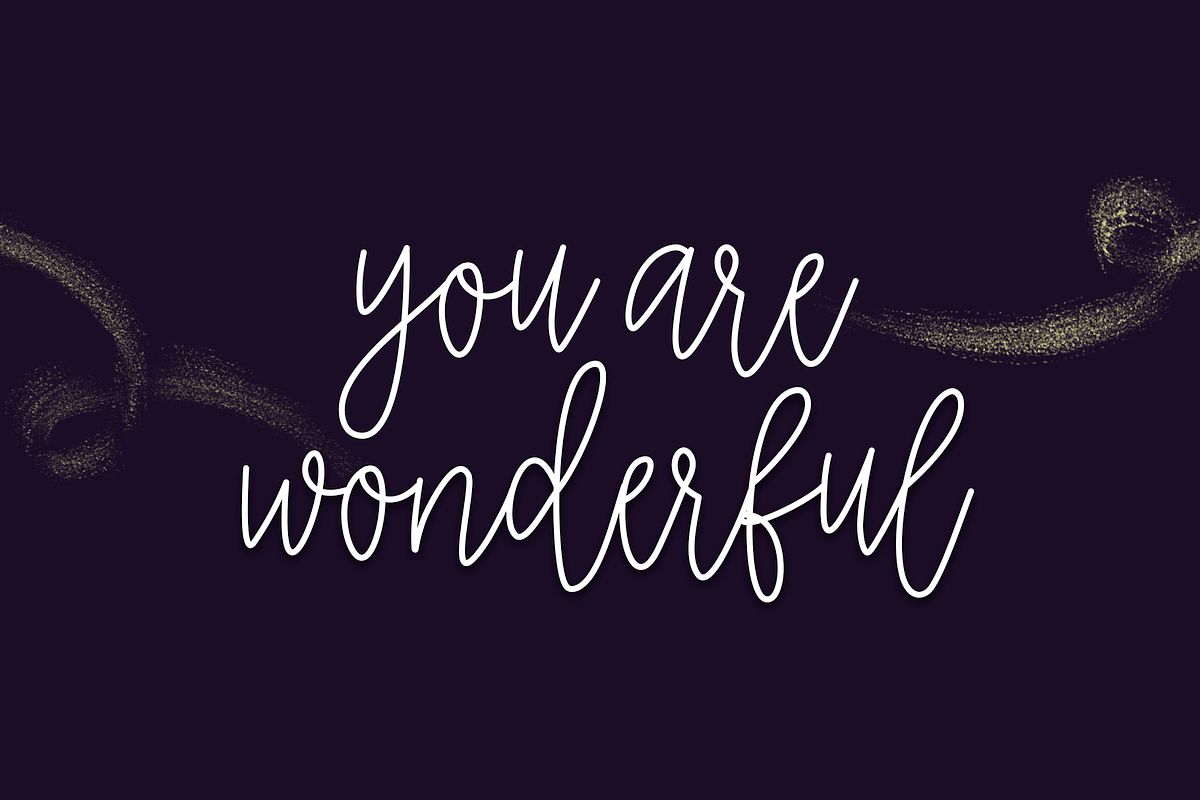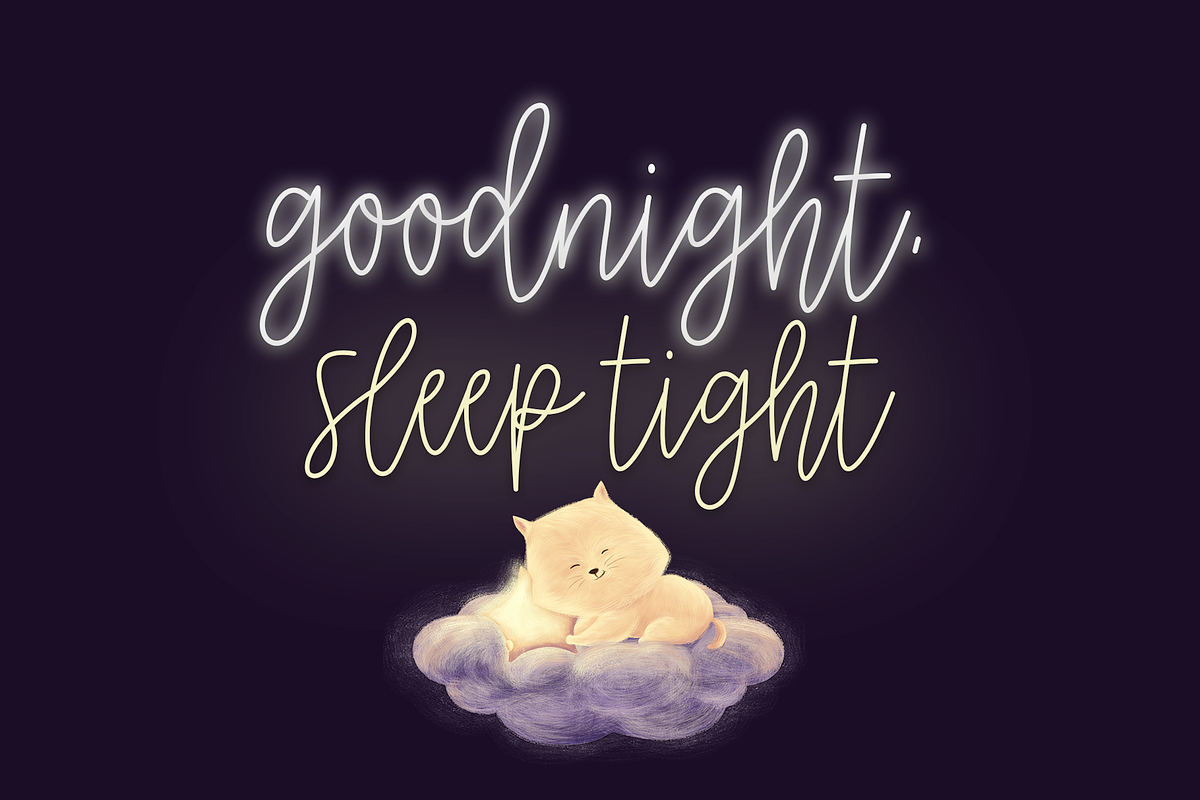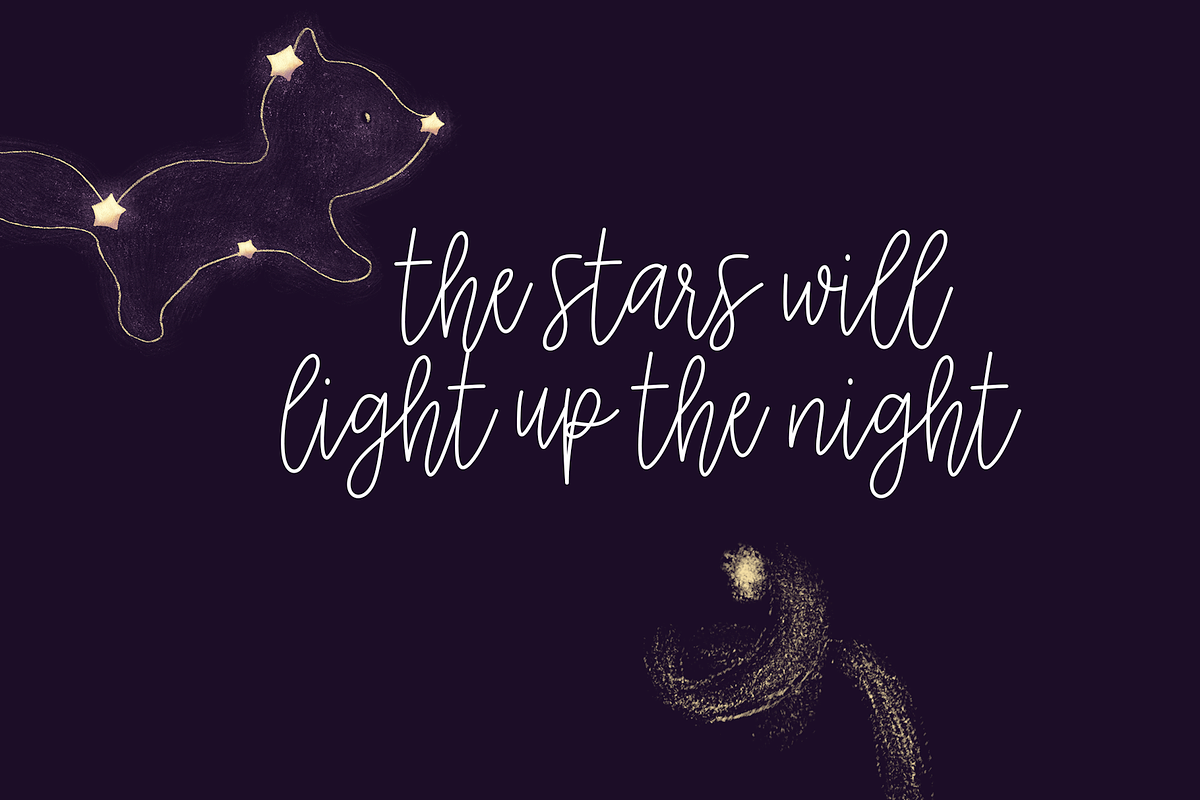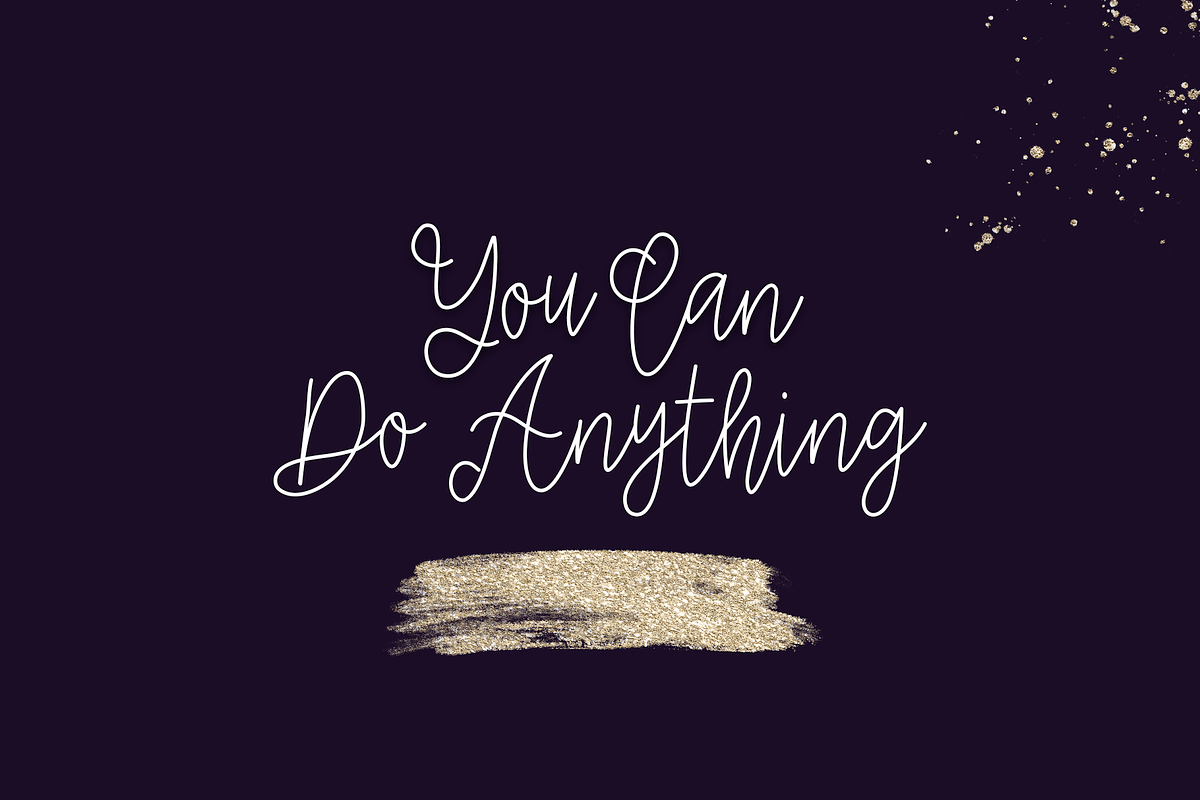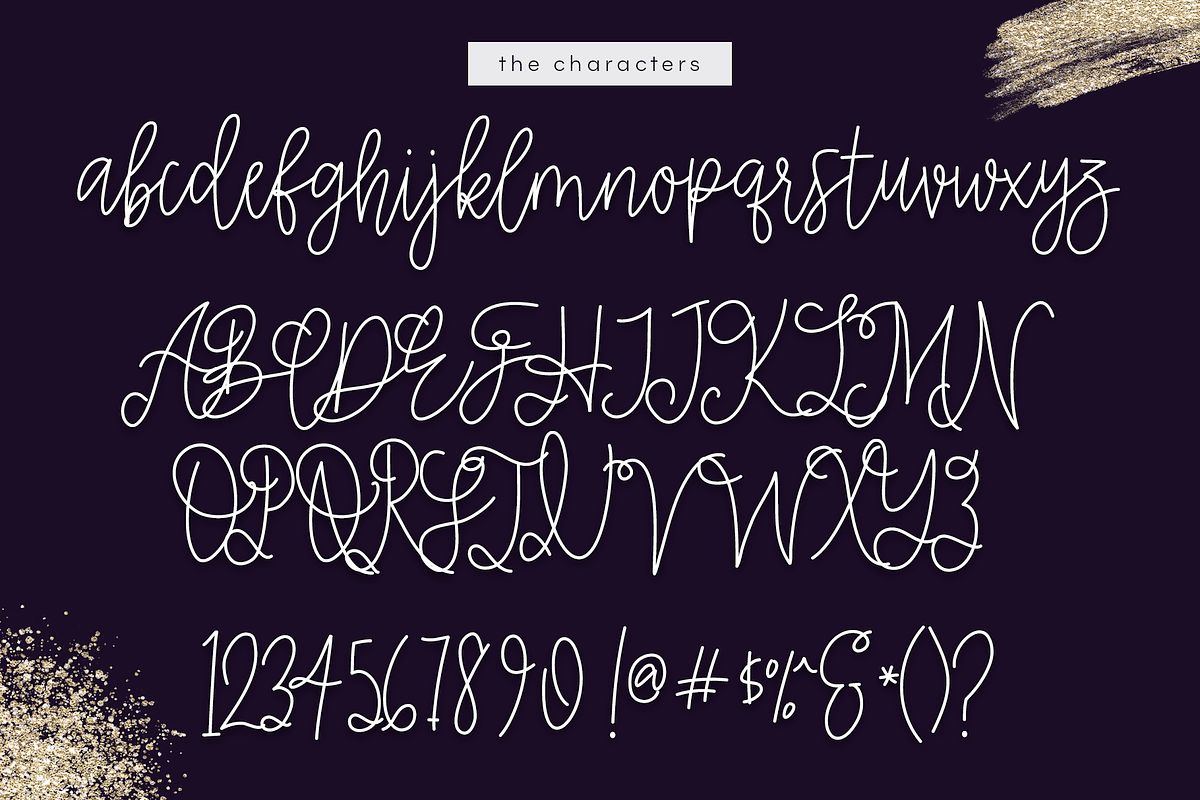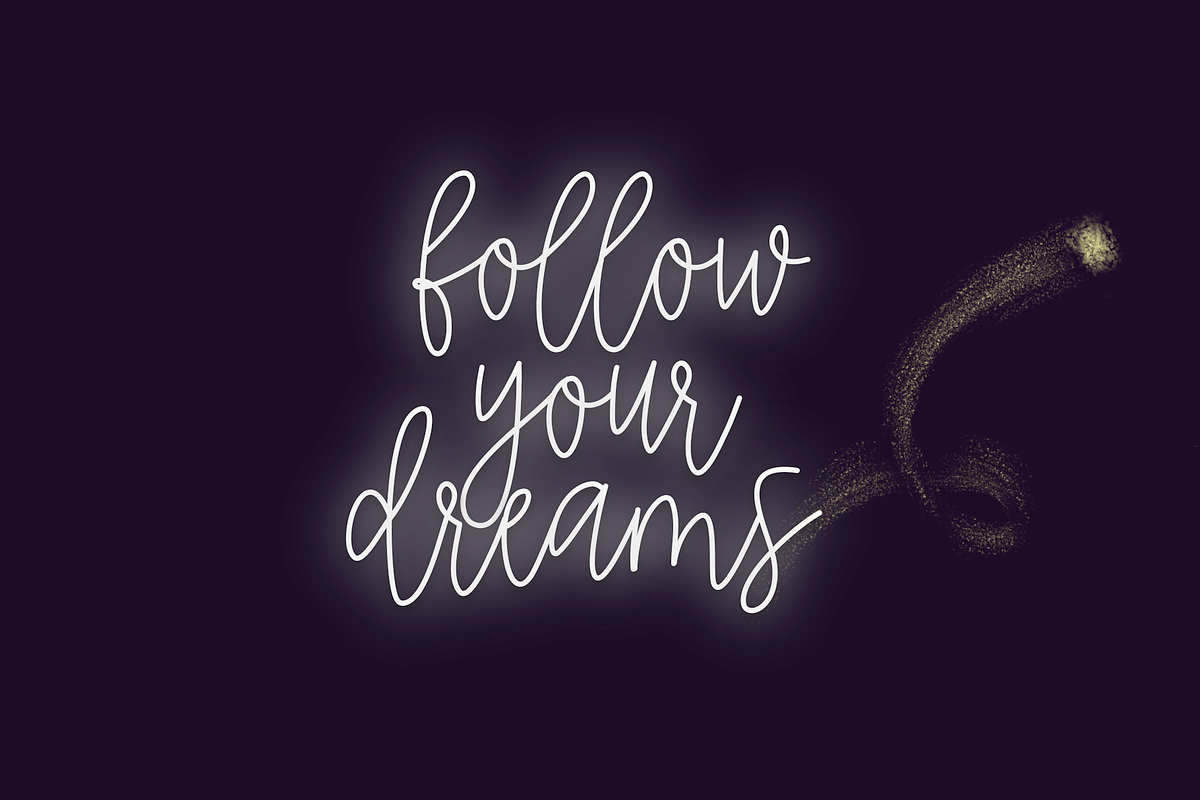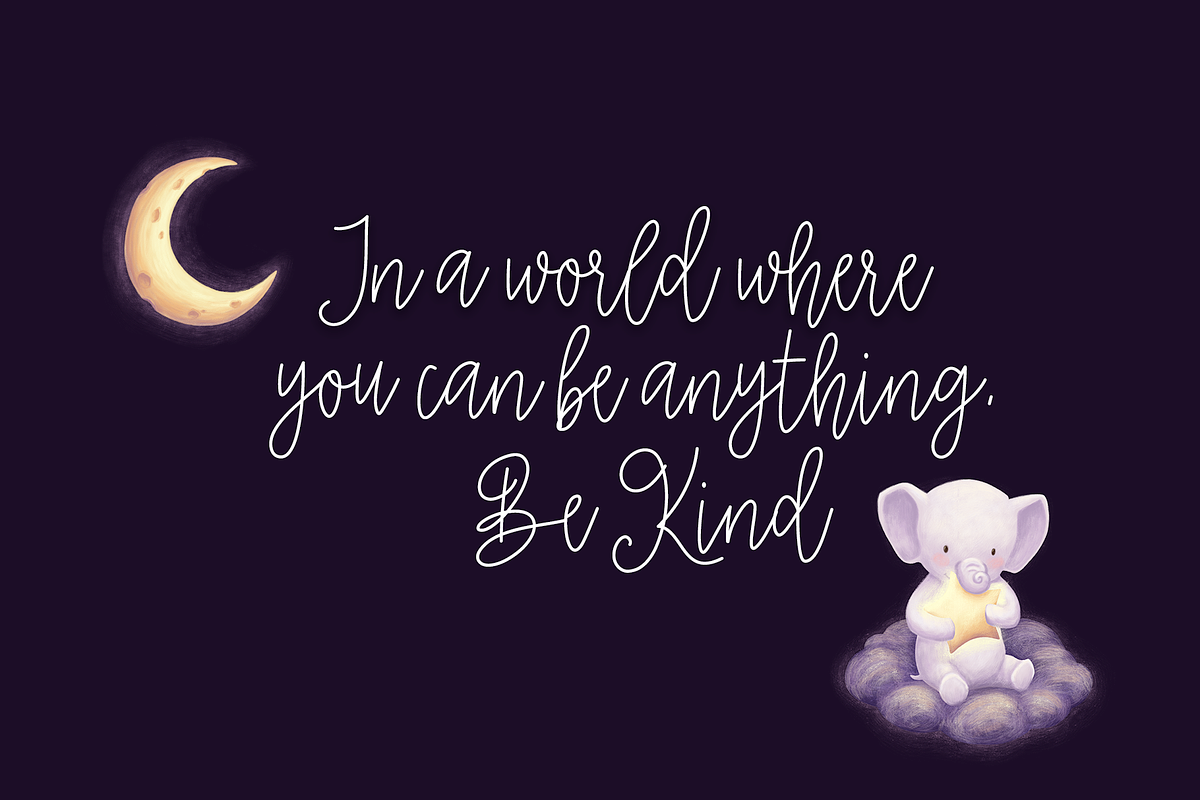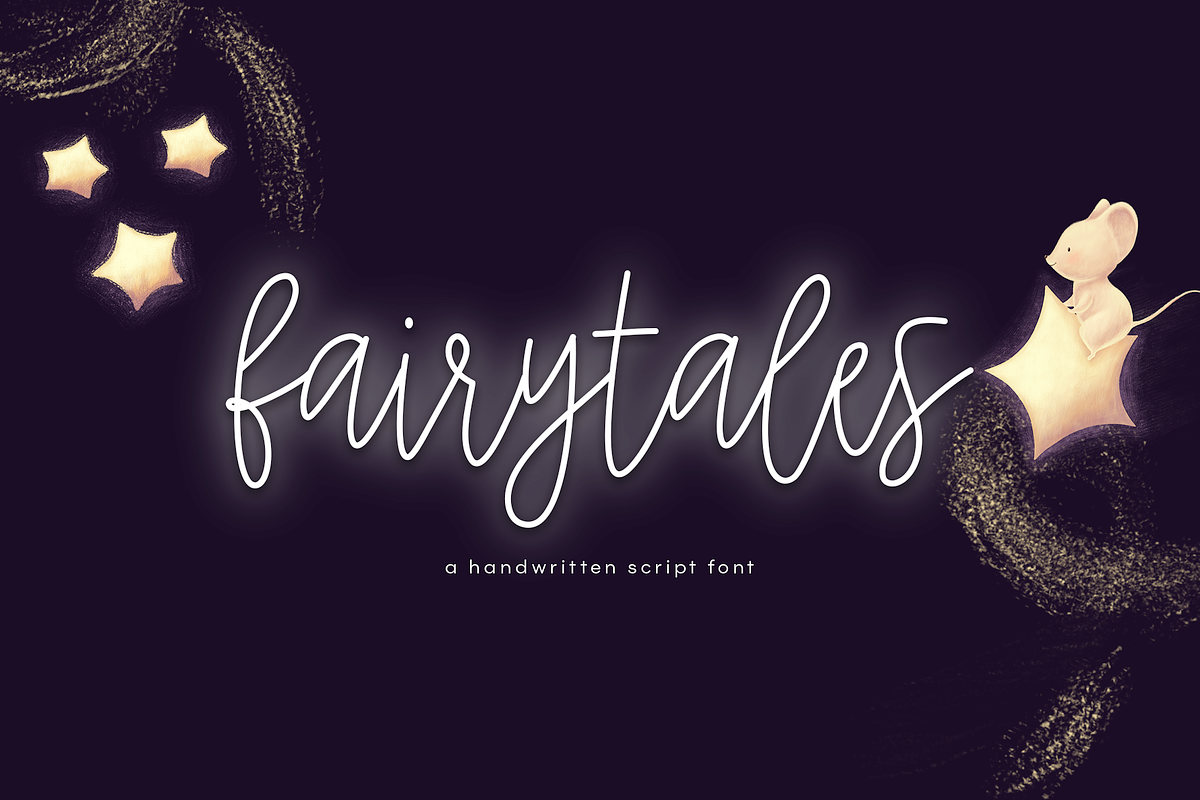
Fairytales - Handwritten Script Font
Fairytales is an elegant handwritten script font.
This font is perfect for quotes, headings, designs, logos, invitations and more!